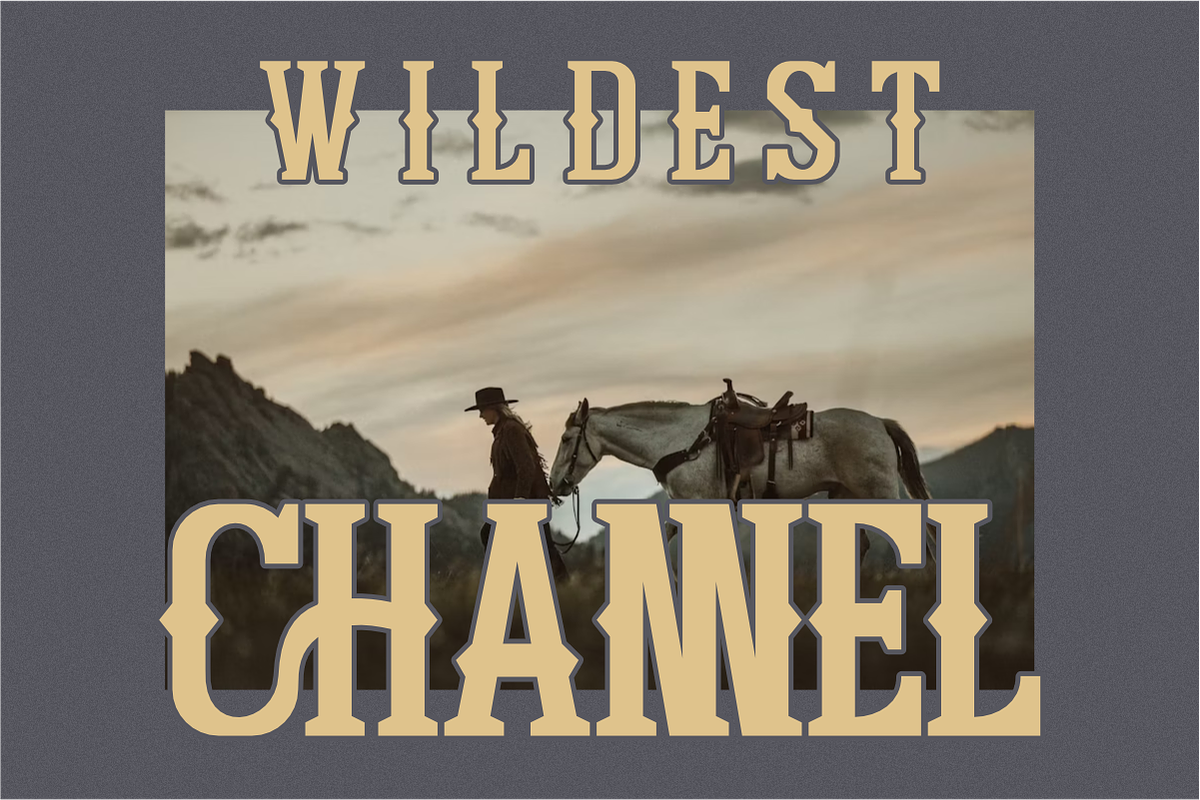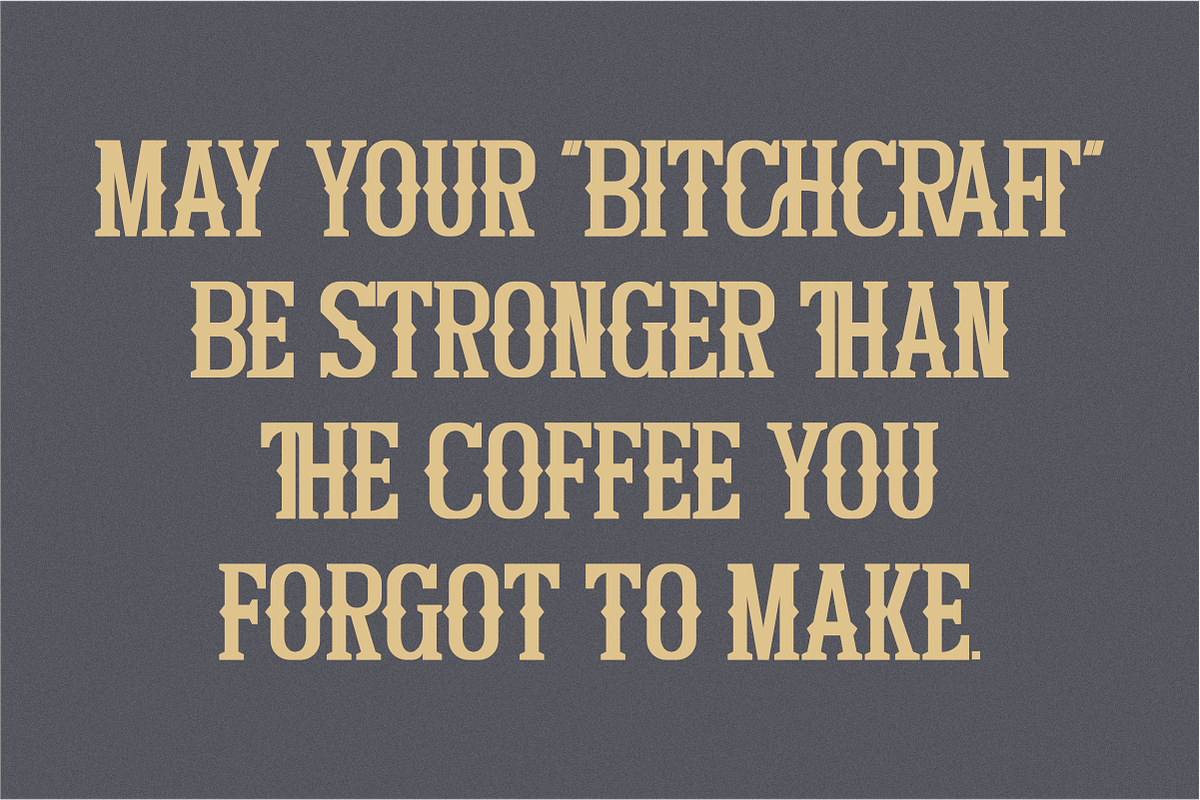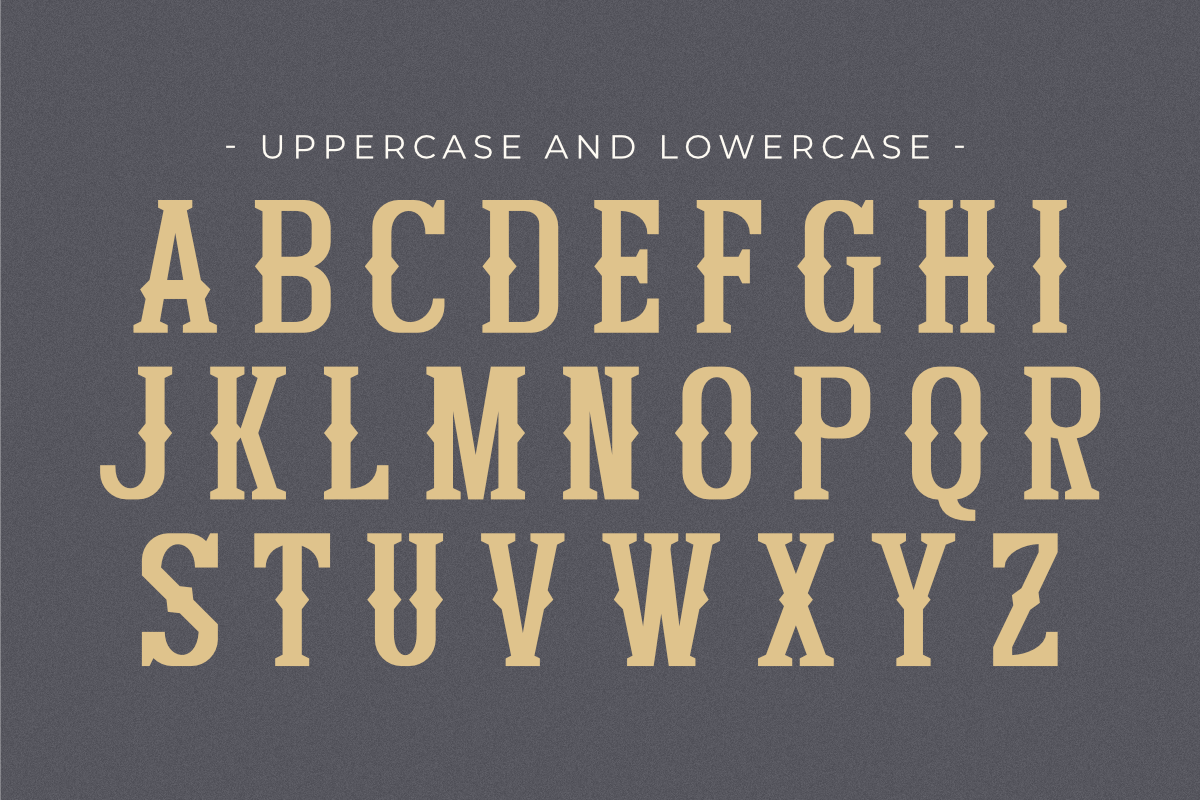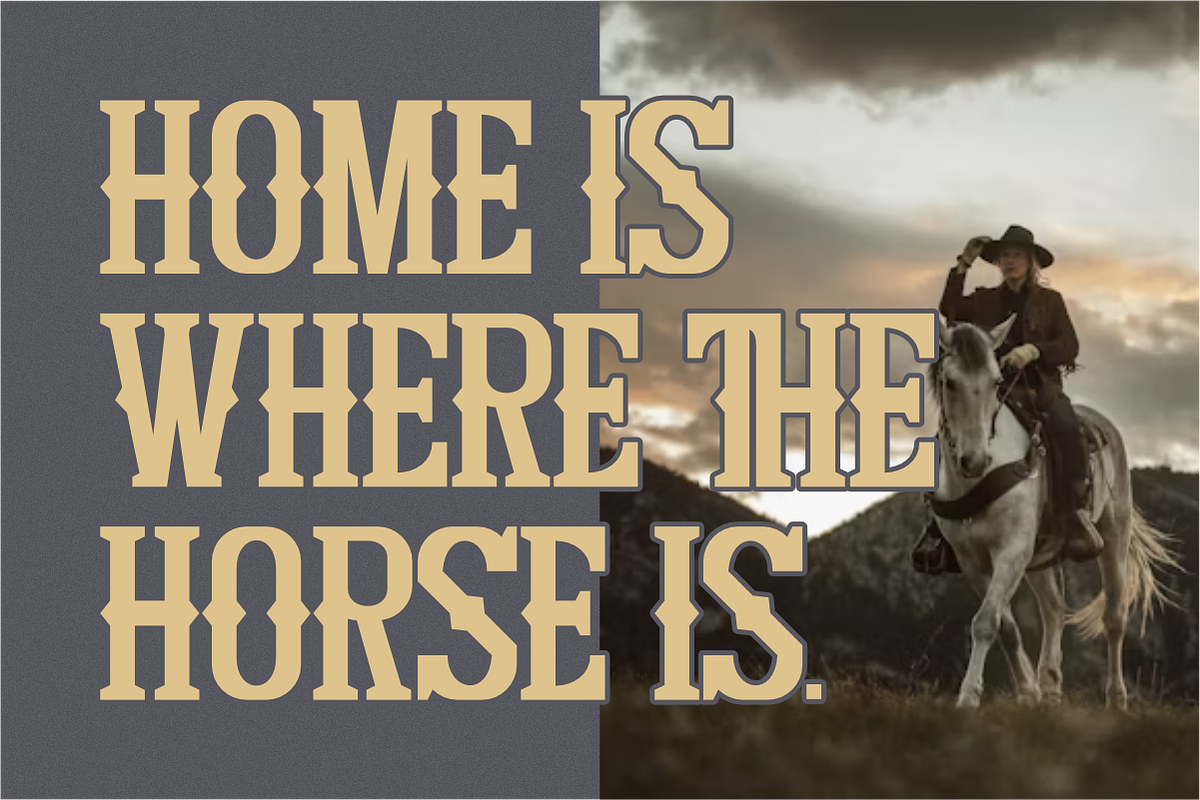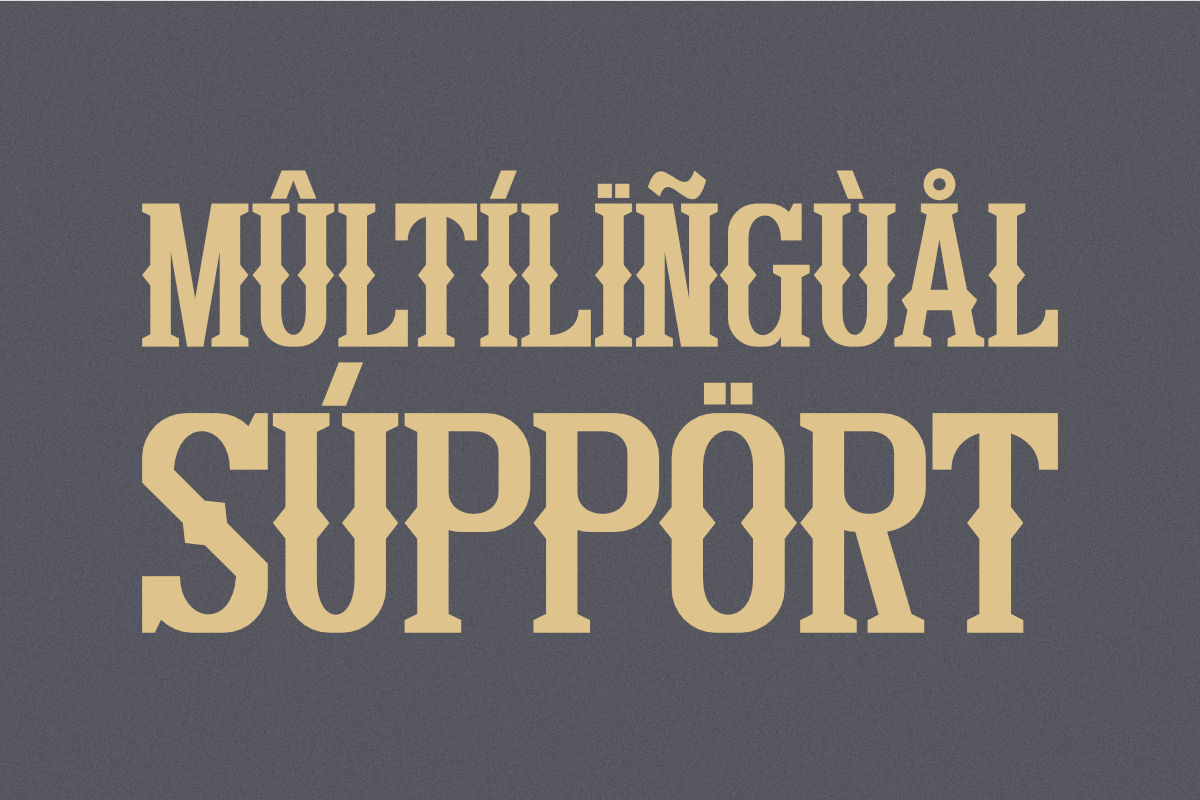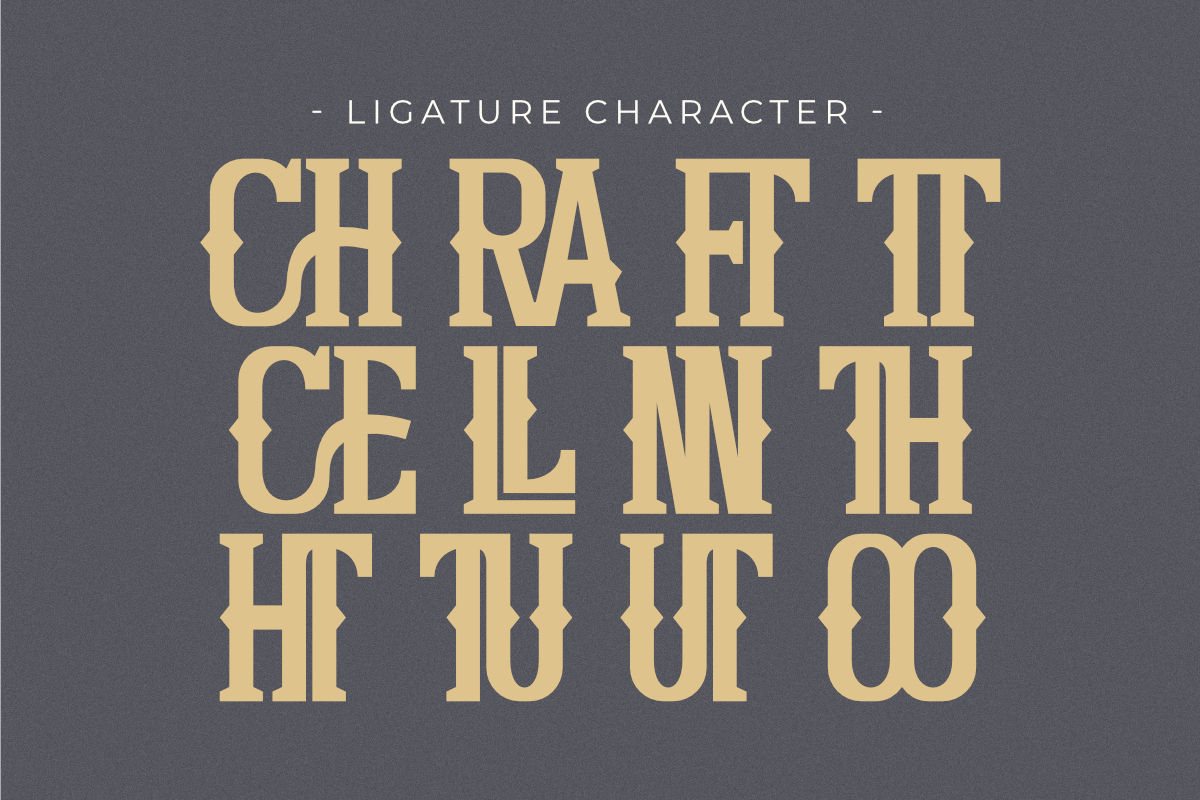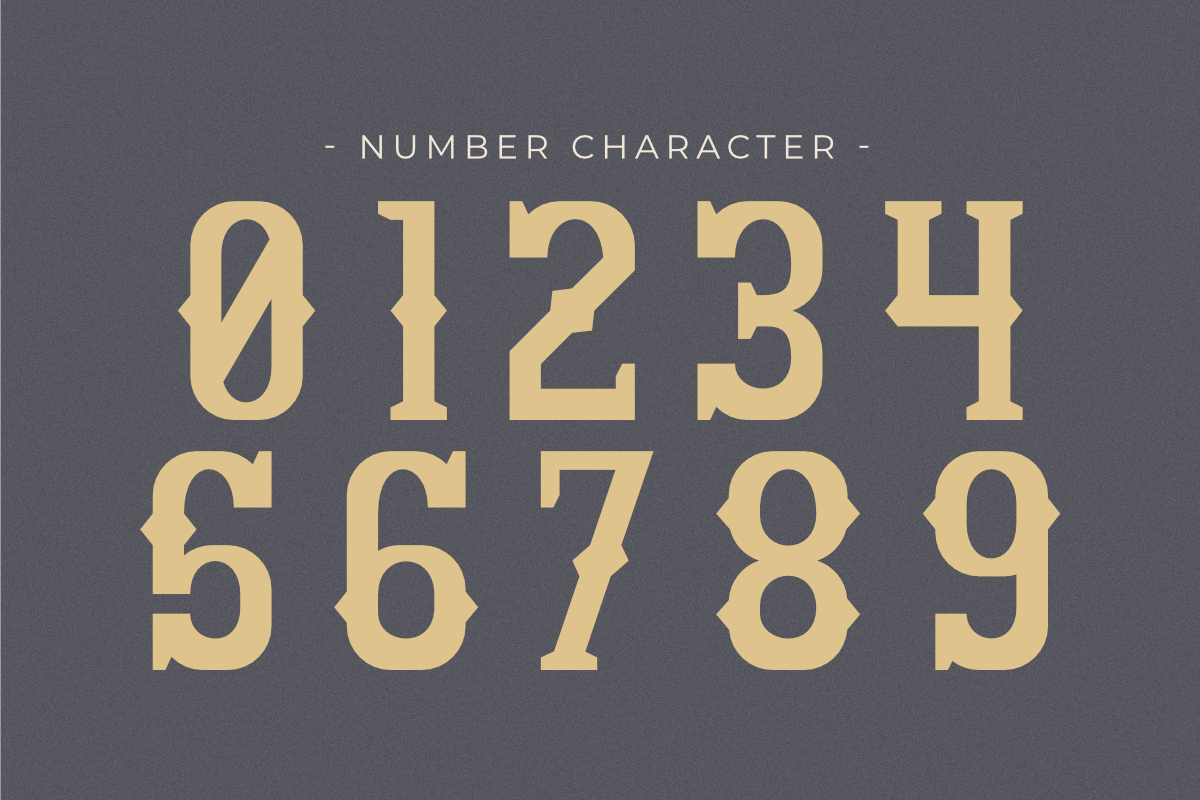
Bitchcraft - Western Slab Serif
Bitchcraft is a Western slab serif font with a vintage cowboy theme. This bold display typeface features unique ligatures and a distinctive style. Its strong visual presence and rugged feel make it perfect for designs that aim to evoke the spirit of the old west. It is ideal for T-shirt designs, posters, and branding.